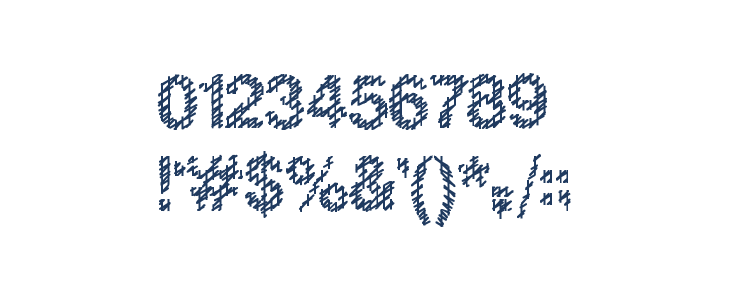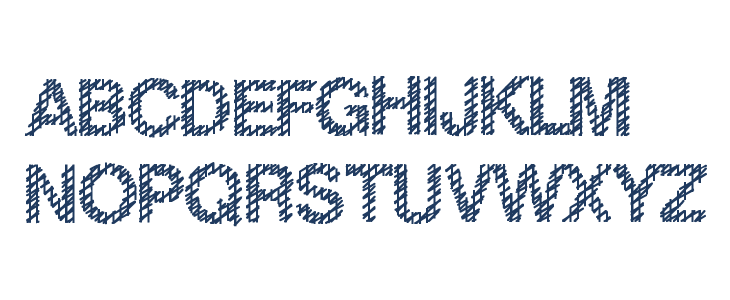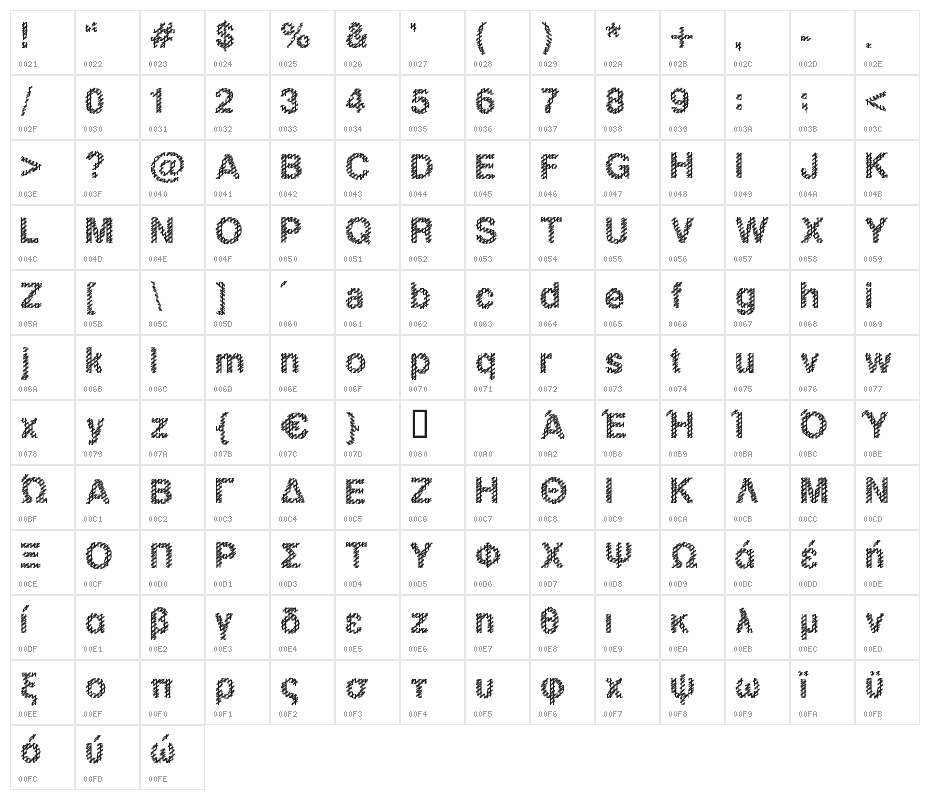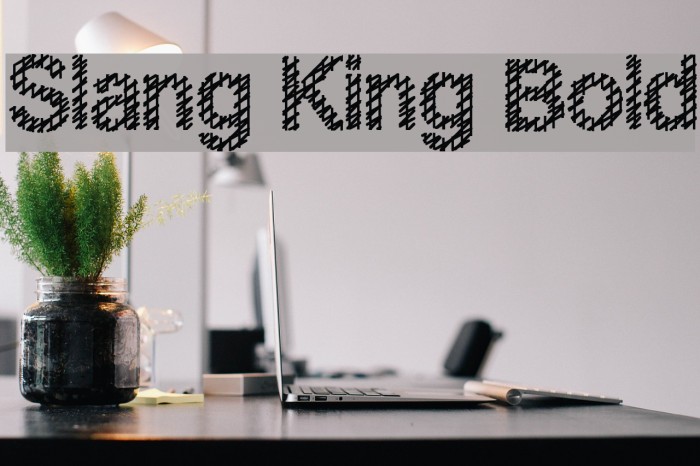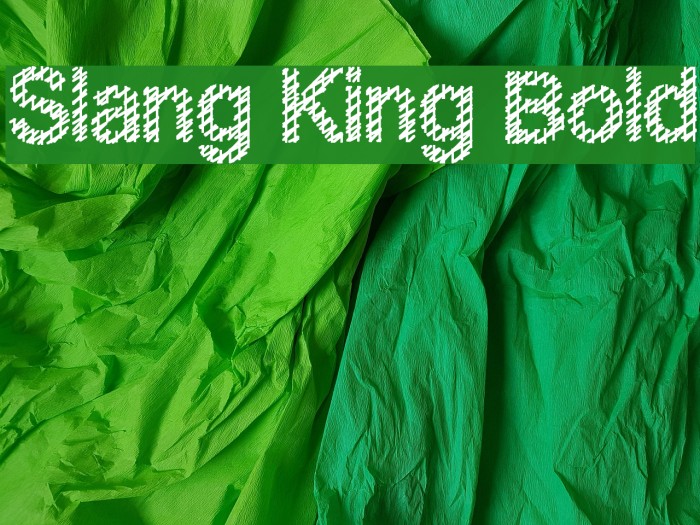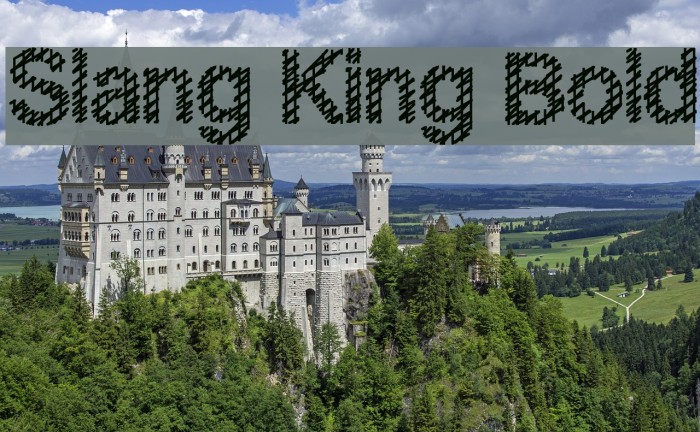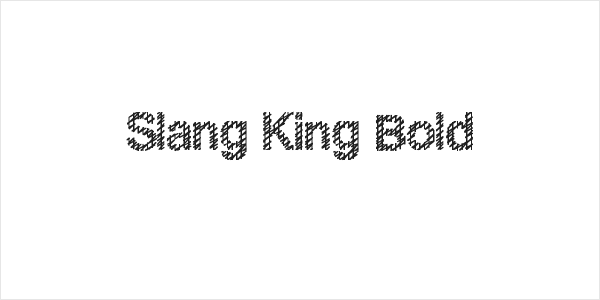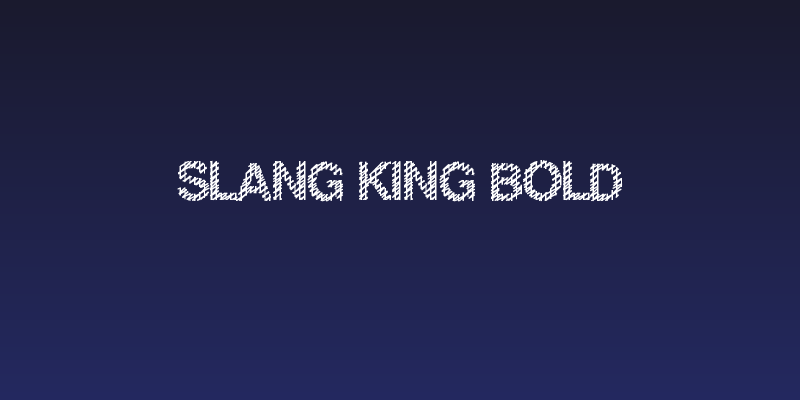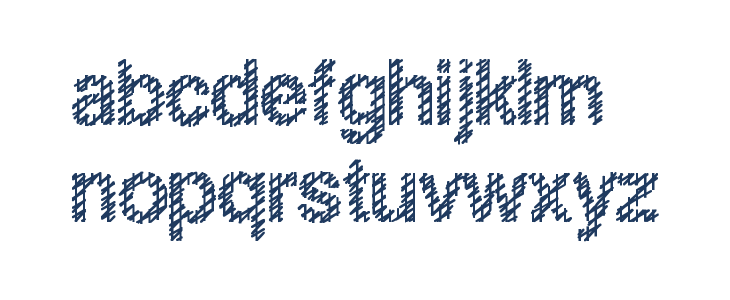
Slang King Bold Font
Slang King Bold Description
This font features a bold, decorative style with a unique crosshatch pattern filling each character. The uppercase and lowercase letters maintain a consistent thickness, creating a cohesive look. The numerals and special characters follow the same design, ensuring uniformity across all glyphs. The font's distinctive texture adds a dynamic and eye-catching element, making it suitable for creative and artistic projects. Its bold presence is ideal for making statements, while the intricate detailing provides a sense of depth and complexity.
| Proposed Projects | Ideal for posters, album covers, branding, and any project requiring a bold, artistic touch. |